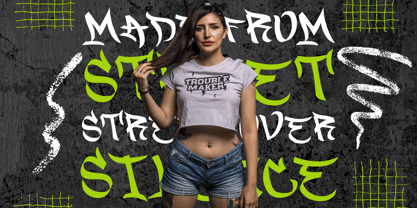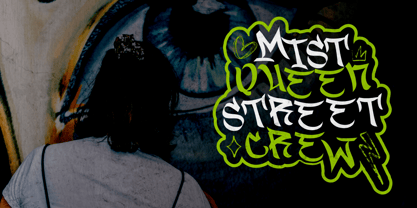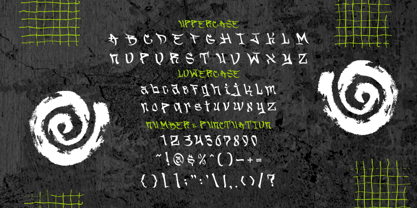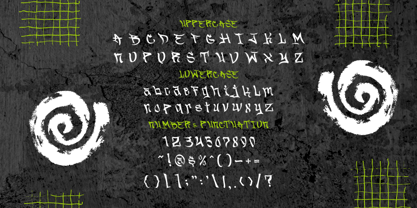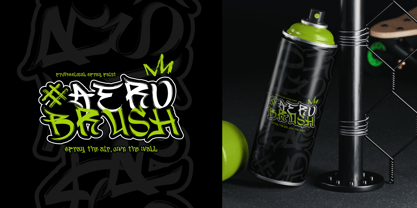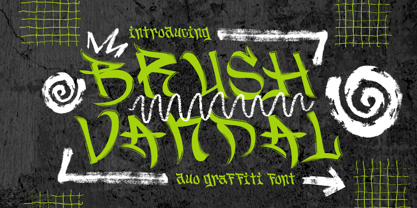
Brush Vandal
La famille de polices Brush Vandal a été conçue par Yesie Erma Yunita et publiée par Shanaf. Brush Vandal contient 2 styles et options de package familial. En savoir plus sur cette famille
Brush Vandal Duo Graffiti Font is a bold and expressive typeface built to capture raw street energy. The letterforms are tall and irregular, with sharp angles and dynamic curves that feel hand-drawn and spontaneous. Each stroke shows controlled roughness, with visible brush pressure changes that create natural contrast between thick and thin lines. The structure stays readable, yet intentionally imperfect, giving the font a strong attitude. Characters feel alive, slightly aggressive, and highly confident, making every word stand out. The spacing feels organic rather than mechanical, which adds authenticity to the overall rhythm. This font delivers a handcrafted look without sacrificing clarity, even at larger headline sizes. As a style, Brush Vandal Duo Graffiti Font sits firmly in the graffiti and street art space. It blends hip hop culture with modern graphic needs, resulting in a playful but edgy personality. The duo concept provides visual variety, allowing designers to create contrast within one project while keeping a consistent voice. This font works especially well for logos, branding systems, posters, headlines, advertisements, stickers, packaging, and editorial titles. It is also suitable for magazine covers, book covers, film titles, merchandise, and creative business branding. Brush Vandal Duo Graffiti Font helps brands communicate rebellion, creativity, and freedom. Designers can rely on it to create bold statements, urban narratives, and strong visual identities. The font performs best when attention and impact are required quickly.